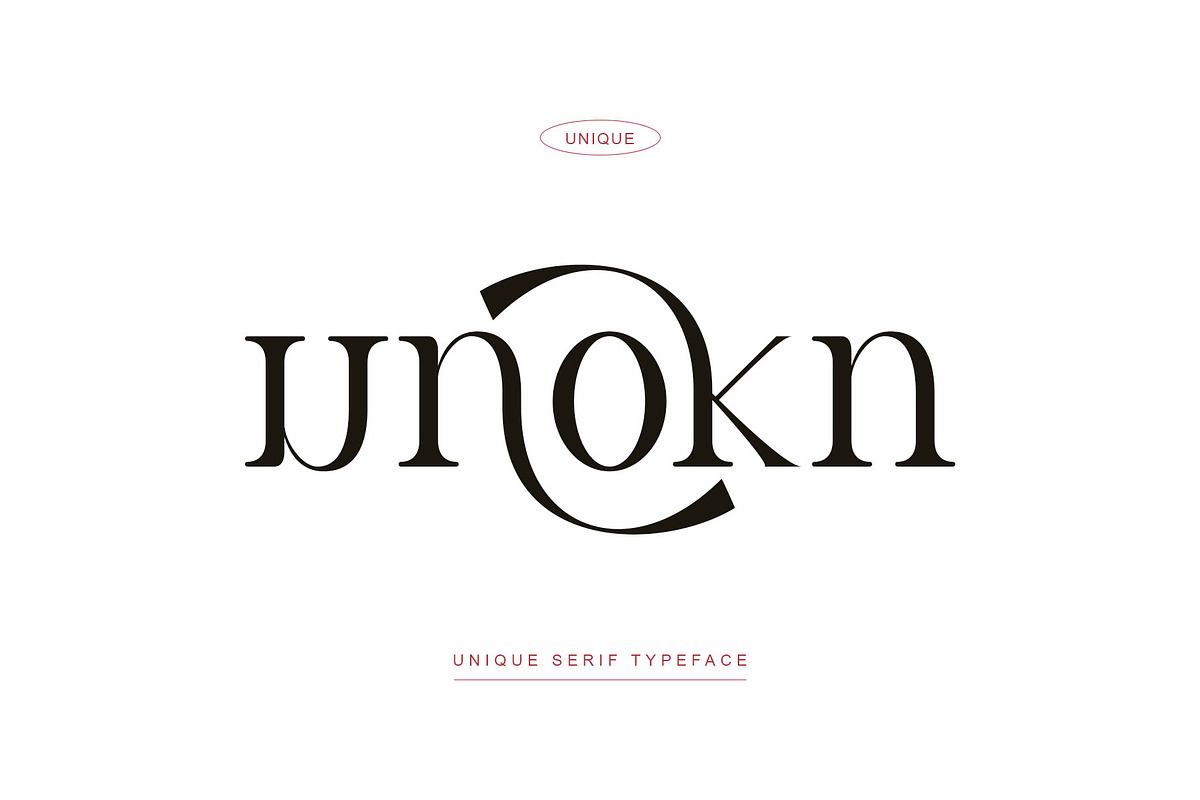
Unokn Serif Typeface Free Download is a bold, modern serif font designed with clean lines and high contrast. Its elegant yet contemporary design makes it perfect for branding, editorial layouts, fashion logos, posters, and high-end packaging. The striking letterforms and carefully crafted details give Unokn a unique presence that combines sophistication with readability.
Using the Unokn Serif Typeface Free Download allows you to add a touch of refinement to your projects. Whether you’re designing a luxury brand identity, a stylish magazine, or a minimalist website, Unokn’s strong yet classic aesthetic will elevate your design with ease.